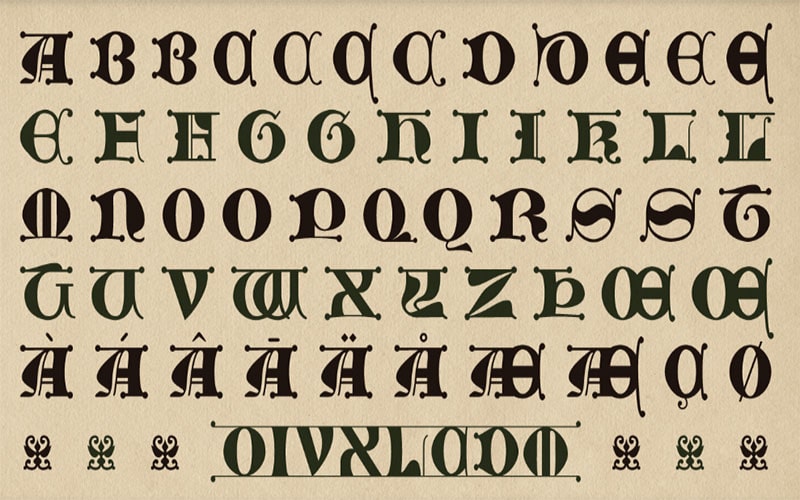
Initials Gothic C Font is a distinctive typeface that combines the elegance of Gothic script with the functionality of modern design. This font stands out for its intricate initial letters.
Which are perfect for creating decorative and impactful designs. The careful balance between Gothic tradition and contemporary aesthetics makes Initials Gothic C Font a versatile and captivating choice for various creative projects.
It is part of a family of typefaces designed by Dieter Steffmann, a renowned German typedesigner known for his extensive work in decorative and display fonts.
Steffmann’s designs are celebrated for their attention to detail and historical inspiration, and Initials Gothic C Font is no exception. The font reflects his expertise in blending historical elements with modern usability.
Initials Gothic C Font
| Font Name: | Initials Gothic C Font |
| Style: | Blacklettered, Medieval, Typeface |
| Font Designer: | Dieter Steffmann |
It is primarily available in a single, intricate style. Its ornate and decorative nature makes it suitable for a variety of specialized uses, including Book Covers and Titles, Certificates and Diplomas, and Posters and Signage.
The font features highly decorative initial letters with intricate gothic detailing, making each character a work of art. The font is meticulously kerned and spaced to ensure optimal readability and visual appeal.